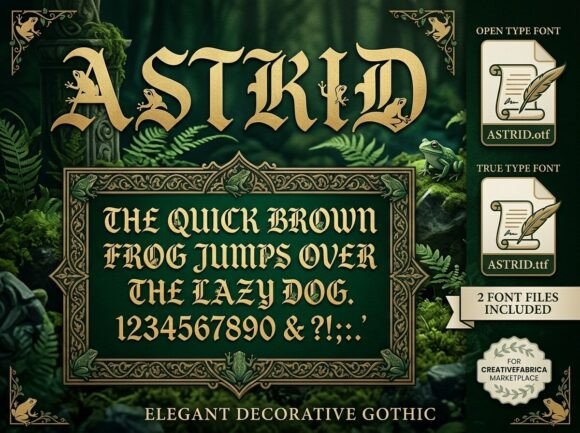
The Ultimate Display Font: Astrid Font Review and Guide
What Makes Astrid Font Special?
Astrid Font is a decorative display font designed to be the center of attention. With its unique artistic elements and strong visual personality, it’s perfect for creators who want to break away from the ordinary. This font is versatile enough for bold headlines, artistic logos, and creative packaging, while maintaining a professional and polished finish.
Here’s what I love about Astrid Font:
- ✨ Unique and artistic design that’s perfect for making a statement.
- ✅ Professional and polished finish.
- ✅ Versatile enough for various design projects, from headlines to logos.
However, there are a few quirks to be aware of:
- ⚠️ Astrid Font is an ALL-CAPS (Uppercase Only) display typeface, which means it doesn’t include lowercase letters.
- 🤔 This font is specifically designed for high-impact headlines, logos, and decorative initials, so it may not be the best choice for body text or lengthy paragraphs.
Astrid Font was designed with inspiration from various artistic and cultural movements. The font’s unique design elements are reminiscent of luxurious typography and high-end fashion branding. The designer aimed to create a font that would make a statement and add a touch of sophistication to any design project.
| Font Name | Astrid Font |
| Author | LINEART3 |
| Is Astrid Font suitable for body text? | No, Astrid Font is designed for headlines, logos, and decorative initials. It’s not recommended for body text or lengthy paragraphs. |
| Does Astrid Font include lowercase letters? | No, Astrid Font is an ALL-CAPS (Uppercase Only) display typeface and does not include lowercase letters. |